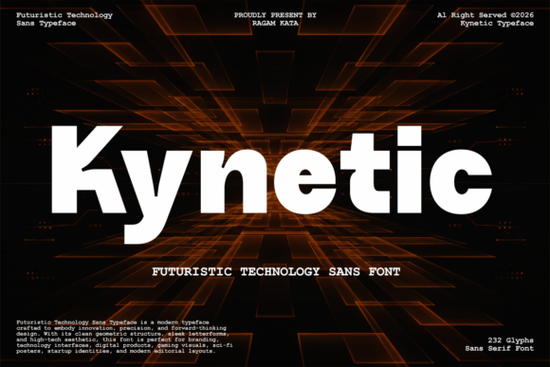
If you’re looking for a typeface that screams modern tech, the Kynetic Font is worth your attention. It’s a bold, futuristic sans-serif that was built for brands wanting a strong, high‑impact visual identity. Inspired by digital innovation and next‑generation design trends, this font gives any project an unmistakably futuristic feel.
What makes Kynetic different from other sans-serif fonts?
Most sans‑serifs aim for clean readability. Kynetic goes a step further by adding a tech‑edgy character that still stays legible. It’s engineered for versatility – you can use it in technology branding, startup identities, gaming interfaces, esports graphics, sci‑fi posters, digital products, mobile apps, UI/UX presentations, advertising, and contemporary editorial layouts. The letterforms feel sharp and forward‑looking without becoming gimmicky.
How can you use Kynetic in real projects?
Whether you’re building an AI startup brand, creating cyberpunk‑inspired visuals, designing futuristic packaging, or developing innovative digital experiences, Kynetic offers the visual confidence to stand out. Here are a few practical ideas:
- Tech logos and wordmarks – The bold geometry works perfectly for a clean, memorable identity.
- Game UI / esports overlays – Its high readability at small sizes makes it suitable for scoreboards and menus.
- Sci‑fi book covers and posters – Use it for titles that need a sense of speed and futurism.
- App onboarding screens – Pair Kynetic with simple illustrations to guide users through a modern interface.
- Presentation headlines – Grab attention in pitch decks for startups or tech products.
Which industries benefit most from a futuristic sans-serif?
If you work in any of these fields, Kynetic will feel right at home:
- Software and app development
- Gaming and esports
- Digital marketing and advertising
- Product design for electronics or IoT devices
- Print‑on‑demand merchandise like tech‑themed t‑shirts and stickers
For print‑on‑demand sellers, this font can give your mockups a polished, current look that customers notice. Small businesses launching a new tech service can use it to look credible and forward‑thinking without hiring a full branding agency.
Practical tips for working with Kynetic
To get the most out of this typeface, keep these simple rules in mind:
Pair it with a neutral or minimalist companion font
Because Kynetic is so bold, try using it only for headlines and short text. For body copy, choose a simple sans‑serif like Open Sans or your favorite neutral. That contrast keeps the design balanced.
Watch your spacing
Futuristic fonts can feel tight. Adjust letter spacing (tracking) a little wider if you’re using all caps lines – it improves readability and gives a more premium look.
Test on different backgrounds
Kynetic works well on dark backgrounds (think cyberpunk black or deep blue) where its shapes pop. But also test it on light backgrounds for apps or print – the thick strokes hold up nicely.